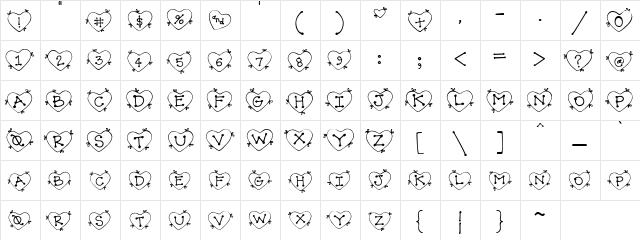
DJ HeartArt Regular
Design Context for DJ HeartArt Typeface
DJ HeartArt is a composed and adaptable typeface that performs quietly and consistently across a wide range of design contexts.